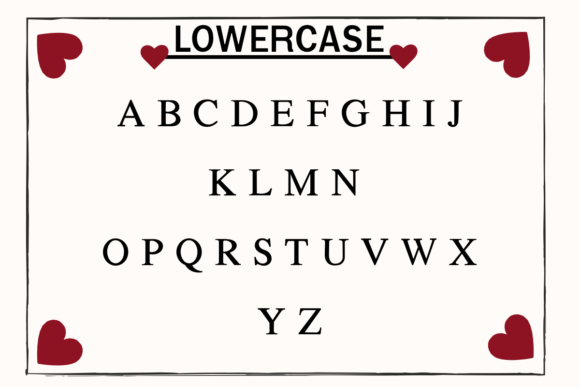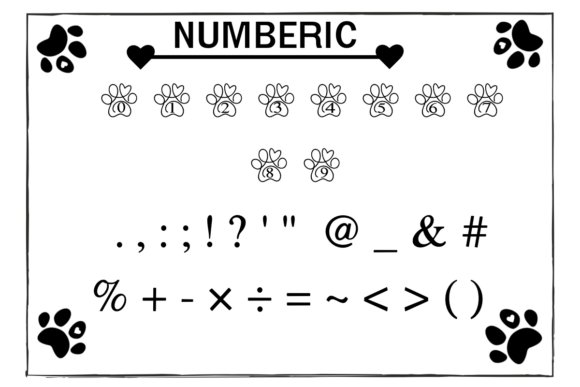
Love Dog Font
Love Dog is a charming decorative font featuring adorable paw prints with embedded letters. Perfect for jotting down notes, journaling, or crafting greeting cards, it also works beautifully for a variety of other designs. Use it to create banners, mugs, shirts, stationery, social media posts, and more!